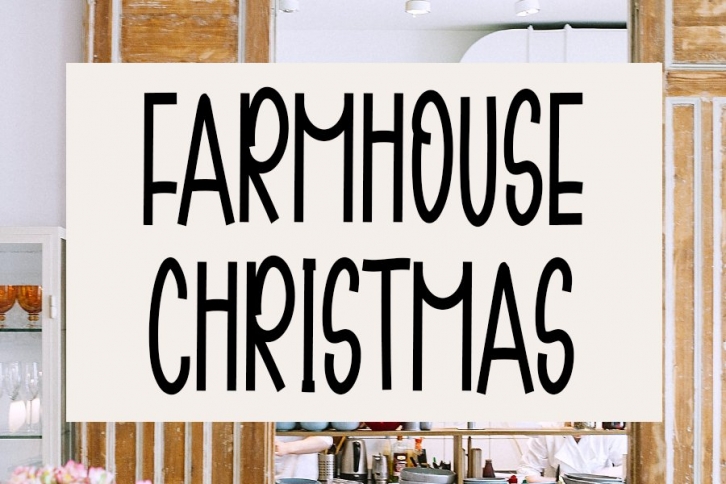
Farmhouse Christmas is a gorgeous font that was realeased on December 16, 2020. The font can be used in many style contexts and design environments. Perfect for invitations, magazines, websites, logos, and more! It was designed by InermediaSTUDIO and the file size is 11.4 MB. Thanks for checking out this font!